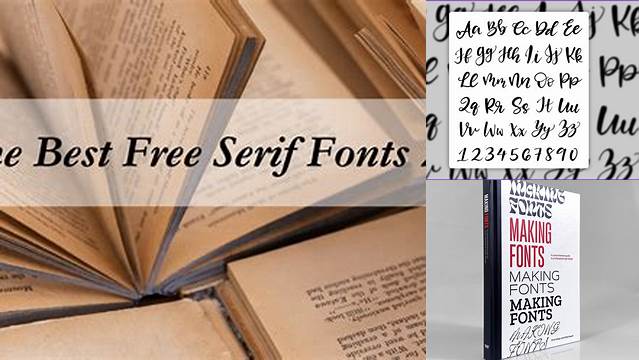
Free Font Lettering Styles: Your Ultimate Guide
Are you on the hunt for free font lettering styles to elevate your design projects? Look no further! In this comprehensive guide, we'll dive deep into the world of typography and explore a wide array of lettering styles that won't cost you a dime. Whether you're a seasoned designer or just starting out, understanding and utilizing different font lettering styles can significantly enhance the visual appeal and impact of your work. From elegant scripts to bold sans-serifs, we'll cover various categories and provide examples to inspire your next creative endeavor.
Understanding the Basics of Font Lettering Styles
Before we jump into specific examples, let's establish a foundational understanding of font lettering styles. Typography is more than just choosing a pretty font; it's about selecting the right typeface that conveys the intended message and evokes the desired emotions. Different font styles have distinct personalities and characteristics, making them suitable for various applications. For instance, a formal serif font might be perfect for a professional document, while a playful handwritten font could be ideal for a children's book. Understanding these nuances allows you to make informed decisions and create designs that resonate with your target audience.
Key elements that define a font's style include its serifs (the small decorative strokes at the end of letterforms), weight (the thickness of the strokes), contrast (the difference between thick and thin strokes), and x-height (the height of the lowercase letters). These attributes contribute to the overall readability and aesthetic appeal of the font. Experimenting with different combinations of these elements can lead to unique and captivating lettering styles.
Moreover, consider the legibility and readability of your chosen font. Legibility refers to how easily individual letters can be distinguished from one another, while readability pertains to how comfortable it is to read text in a particular font over an extended period. A highly stylized font might look visually striking, but if it compromises legibility or readability, it's not a practical choice for body text. Prioritize clarity and ease of reading, especially for longer passages of text.
In summary, grasping the basics of font lettering styles involves understanding the characteristics that define each style, considering the intended message and audience, and ensuring legibility and readability. With this knowledge, you can confidently explore the vast world of free font lettering styles and choose the perfect typefaces for your projects.
Exploring Different Categories of Free Font Lettering Styles
Now that we've covered the fundamentals, let's delve into the diverse categories of free font lettering styles available. Each category offers a unique aesthetic and serves different purposes, so understanding their characteristics is crucial for effective design.
Serif fonts are characterized by the small decorative strokes, or serifs, that extend from the ends of the letterforms. These fonts are often associated with tradition, authority, and elegance, making them suitable for formal documents, books, and corporate branding. Common examples of serif fonts include Times New Roman, Georgia, and Garamond. While these classic options are widely available, there are also many free serif fonts that offer a fresh take on this timeless style. Look for fonts with varying serif styles, such as bracketed serifs (smoothly connected to the letterform) or hairline serifs (very thin and delicate), to find the perfect fit for your project.
The psychological impact of serif fonts is significant. They are often perceived as trustworthy and reliable, making them ideal for conveying a sense of stability and professionalism. In print, serifs can also enhance readability by guiding the eye along the line of text. However, on screens, serifs may appear less crisp at smaller sizes, so it's important to choose a well-designed serif font that maintains its clarity even at lower resolutions.
Sans-serif fonts, as the name suggests, lack the serifs found in serif fonts. This gives them a cleaner, more modern appearance, making them popular for websites, user interfaces, and contemporary designs. Helvetica, Arial, and Open Sans are well-known examples of sans-serif fonts. Free sans-serif fonts abound, ranging from geometric styles to humanist styles. Geometric sans-serifs feature precise, angular shapes, while humanist sans-serifs have a more organic, flowing feel. Consider the overall tone and message of your design when selecting a sans-serif font.
Sans-serif fonts are often associated with simplicity, efficiency, and innovation. They are highly legible on screens, making them a preferred choice for digital interfaces and mobile devices. The absence of serifs also contributes to a more open and airy feel, which can be particularly effective in minimalist designs. However, some sans-serif fonts can appear sterile or impersonal, so it's important to choose a font with character and personality.
Script Fonts
Script fonts mimic the flowing strokes of handwriting, adding a touch of elegance and personality to designs. These fonts are often used for invitations, logos, and decorative headings. Brush scripts, calligraphic scripts, and handwritten fonts are all variations of script fonts. When using script fonts, it's important to consider their legibility, as overly ornate or stylized scripts can be difficult to read. Pair script fonts with simpler fonts for body text to create a balanced and visually appealing design.
- Test Your Fonts: Before finalizing your design, test your fonts on different devices and screen sizes to ensure that they are legible and visually appealing.
Free font lettering styles offer a wealth of creative possibilities for designers of all levels. By understanding the basics of typography, exploring different font categories, and following the tips outlined in this guide, you can create stunning designs that effectively communicate your message and captivate your audience. So go ahead, explore the world of free fonts and unleash your creativity!